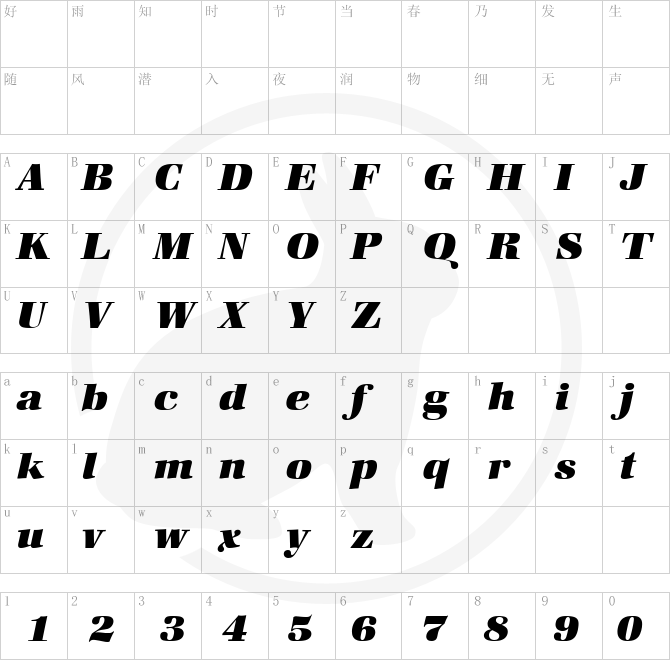
- Font Name:Zapf Book BQ
- Full Name:Zapf Book* Heavy Italic
Zapf-Book-Heavy-Italic.ttf is a very beautiful artistic font, Zapf-Book-Heavy-Italic.ttf is widely used in the design and printing of various books and pictures,Zapf-Book-Heavy-Italic.ttf has a strong visual impact,Zapf-Book-Heavy-Italic.ttf is a commonly used font in newspapers, magazines and books, and is used in posters, e-commerce Poster design, store design, logo design, font design and other fields.Zapf-Book-Heavy-Italic.